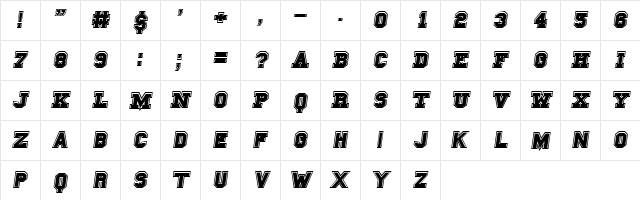
Campus A Bold
| Foundry | Leonard Posavec |
| Designer | Leonard Posavec |
Design Context for Campus A Typeface
Campus A takes a measured approach to typography — its balanced proportions and neutral character make it a reliable workhorse for both digital and print work. The heavy weight commands attention and anchors typographic hierarchies.